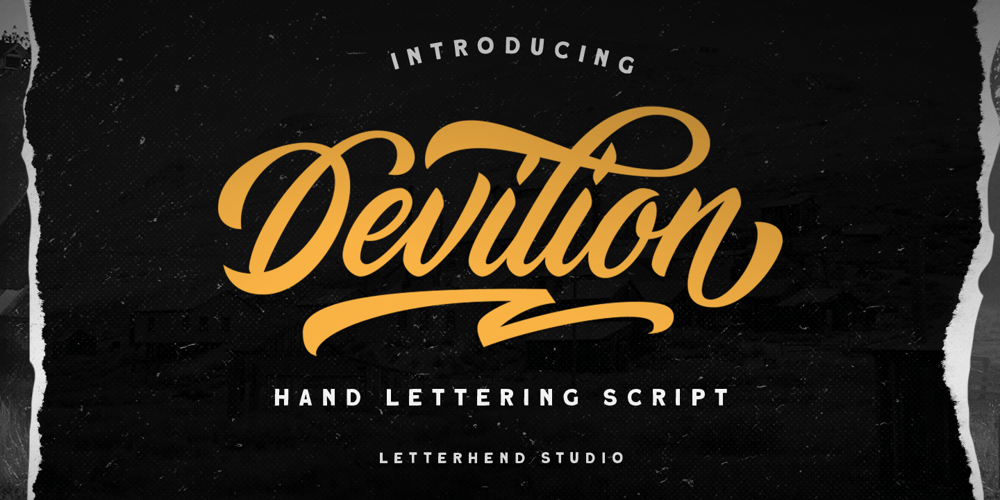
Devilion Font Family was designed by Hendry Juanda and published by Letterhend. Devilion contains 2 styles and family package options. Say hallo to our newest item: Devilion, an amazing hand lettering bold script typeface with attractive swashes and alternates! This font is perfect to be applied especially in logos and various other formal forms such as invitations, labels, magazines, books, greeting/wedding cards, packaging, fashion, make up, stationery, novels, or any type of advertising purpose. This fonts comes in 2 style, Regular with clean script looks and Stamp to give an aged and vintage feel.Features : uppercase & lowercase numbers and punctuation multi-lingual ligatures alternates swashes PUA encoded What will you get : Devilion Regular Devilion Stamp We highly recommend using a program that supports OpenType features and Glyphs panels like many of Adobe apps and Corel Draw, so you can see and access all Glyph variations.Email us to letterhend@gmail.com if you need something! Happy Designing!